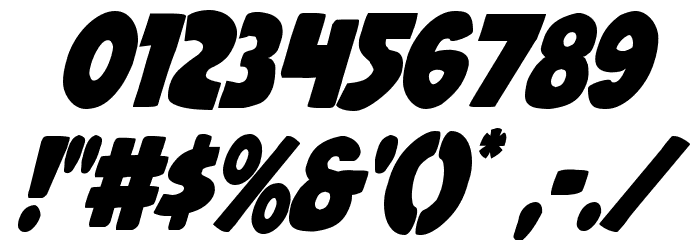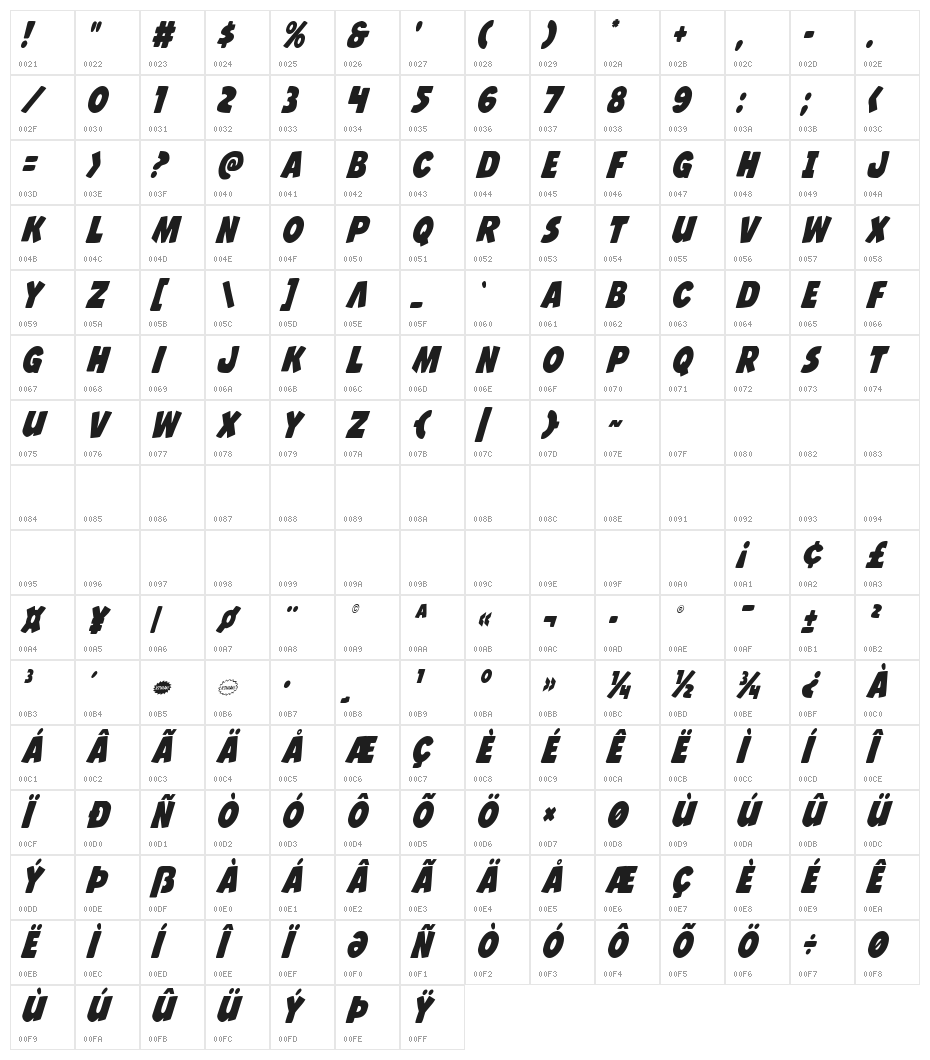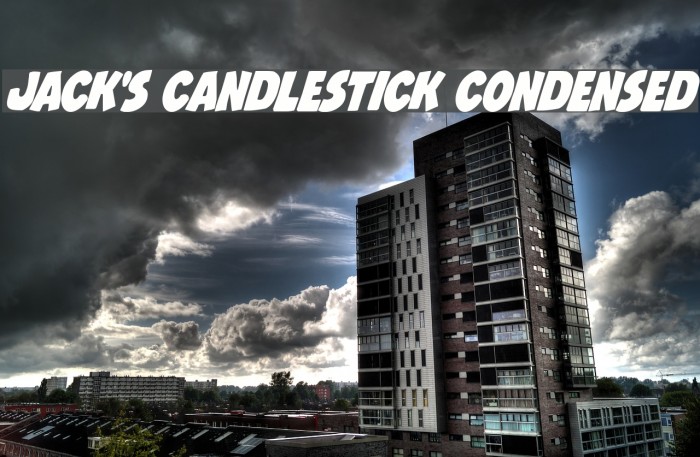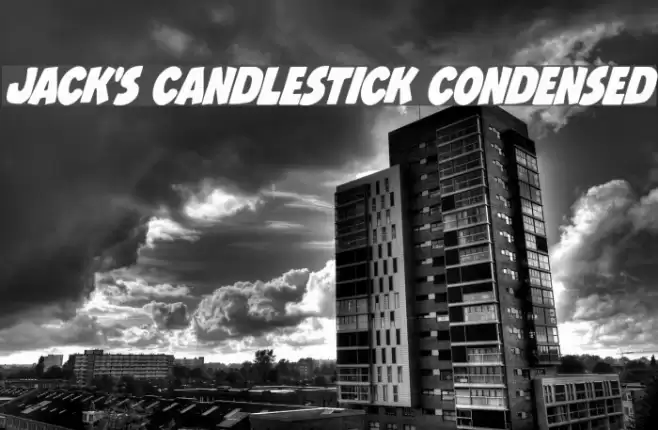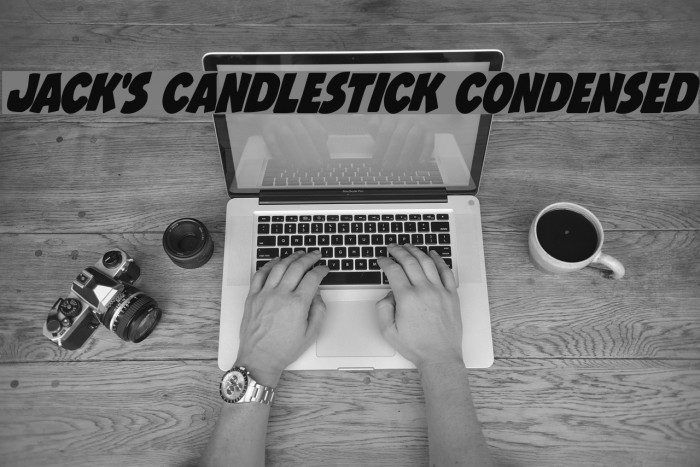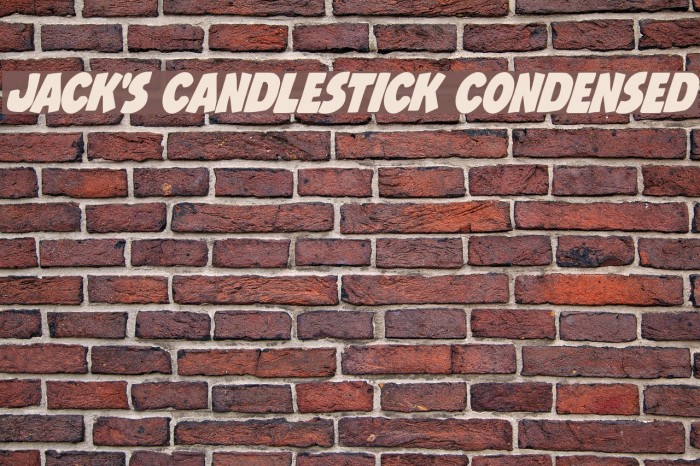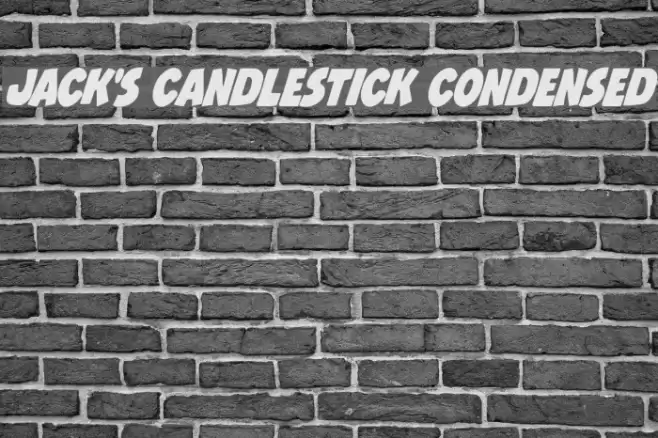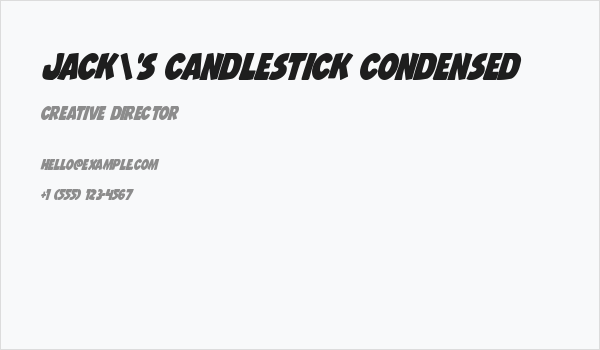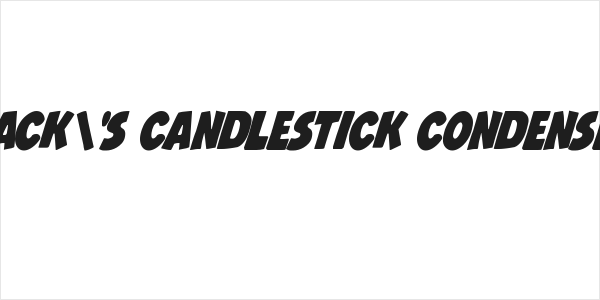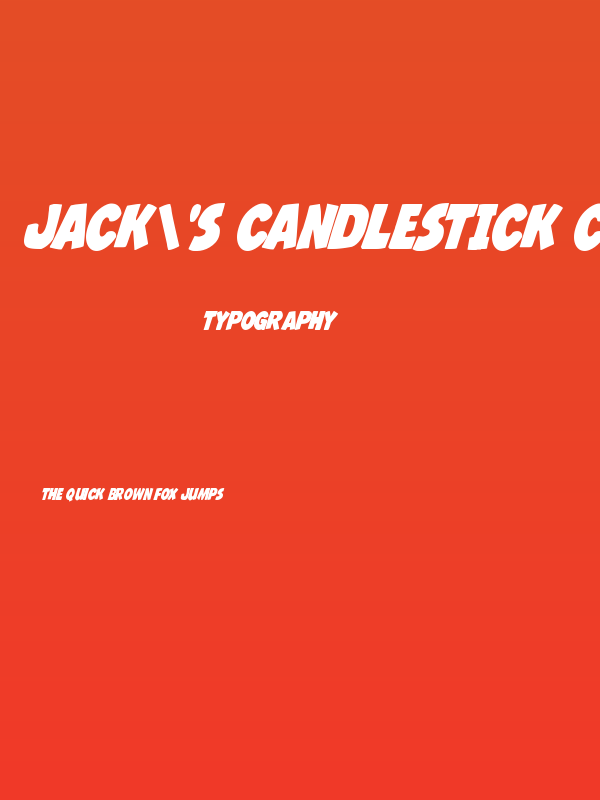
Jack's Candlestick Condensed Font
Jack's Candlestick Condensed Description
This font features bold, condensed characters with a playful and dynamic appearance. The letters are heavily weighted, providing a strong visual impact. The strokes are thick and consistent, creating a cohesive look across all characters. The style is reminiscent of retro or vintage designs, with a modern twist that makes it suitable for contemporary use. The uppercase and lowercase letters maintain a uniform style, while the numbers and special characters are designed to complement the overall aesthetic. This font is ideal for projects that require a bold statement, such as posters, headlines, or branding materials.
| Proposed Projects | Ideal for posters, headlines, branding, and any project needing a bold statement. |